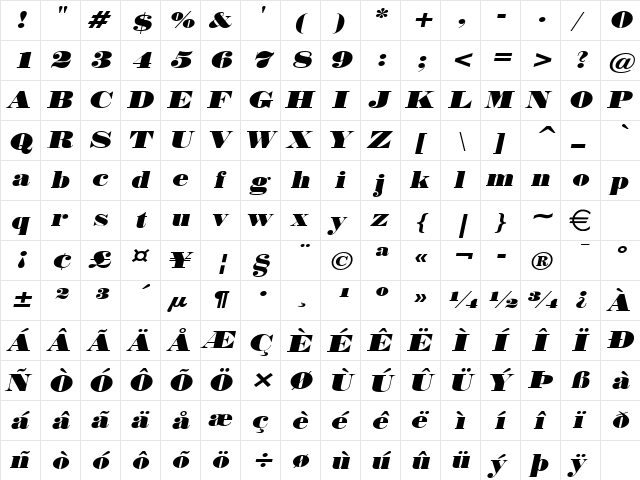
NorwayWide Italic
Design Context for NorwayWide Typeface
NorwayWide is a composed and adaptable typeface that performs quietly and consistently across a wide range of design contexts. The dynamic lean of this cut emphasises speed and emphasis in any layout.